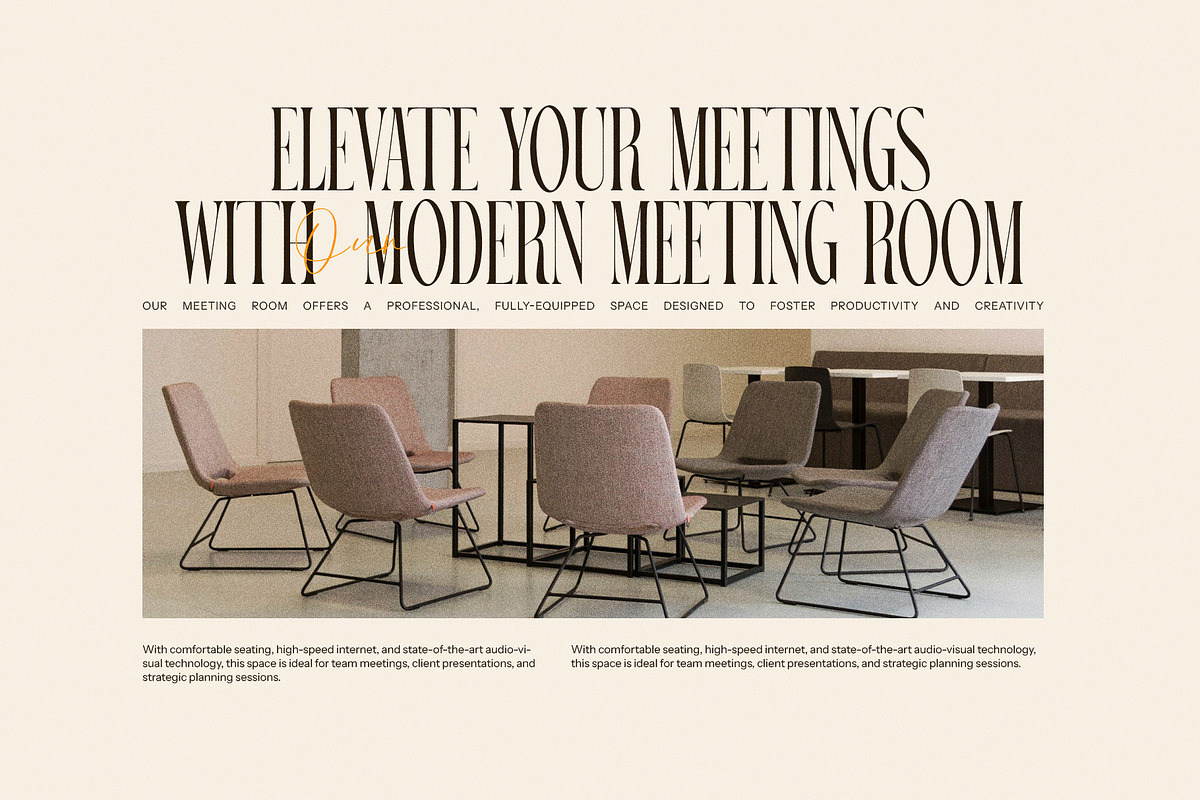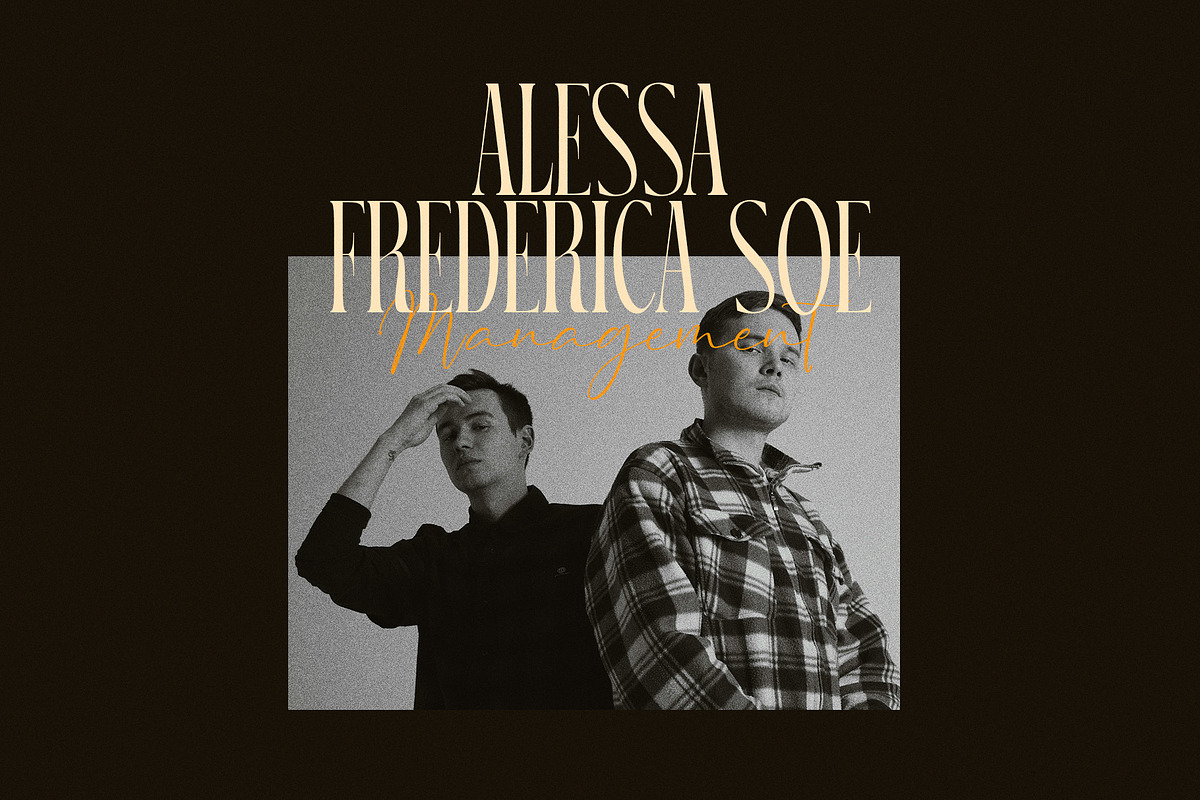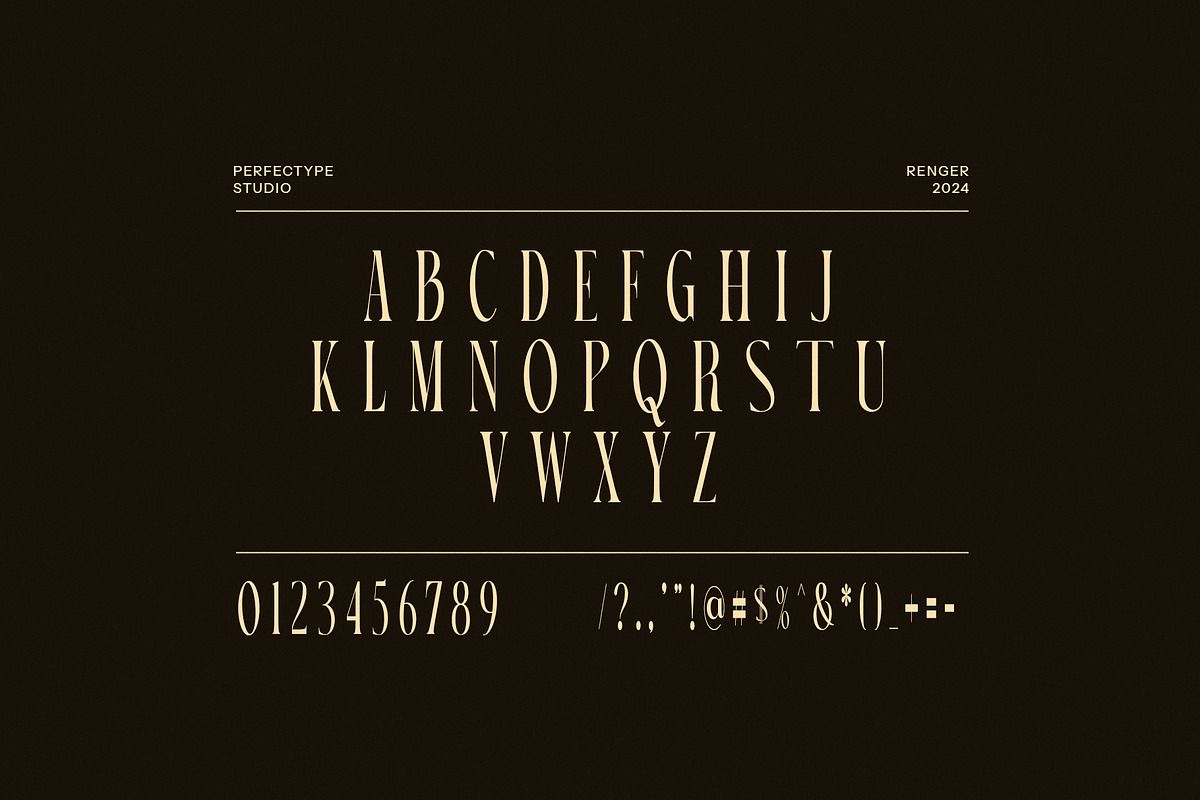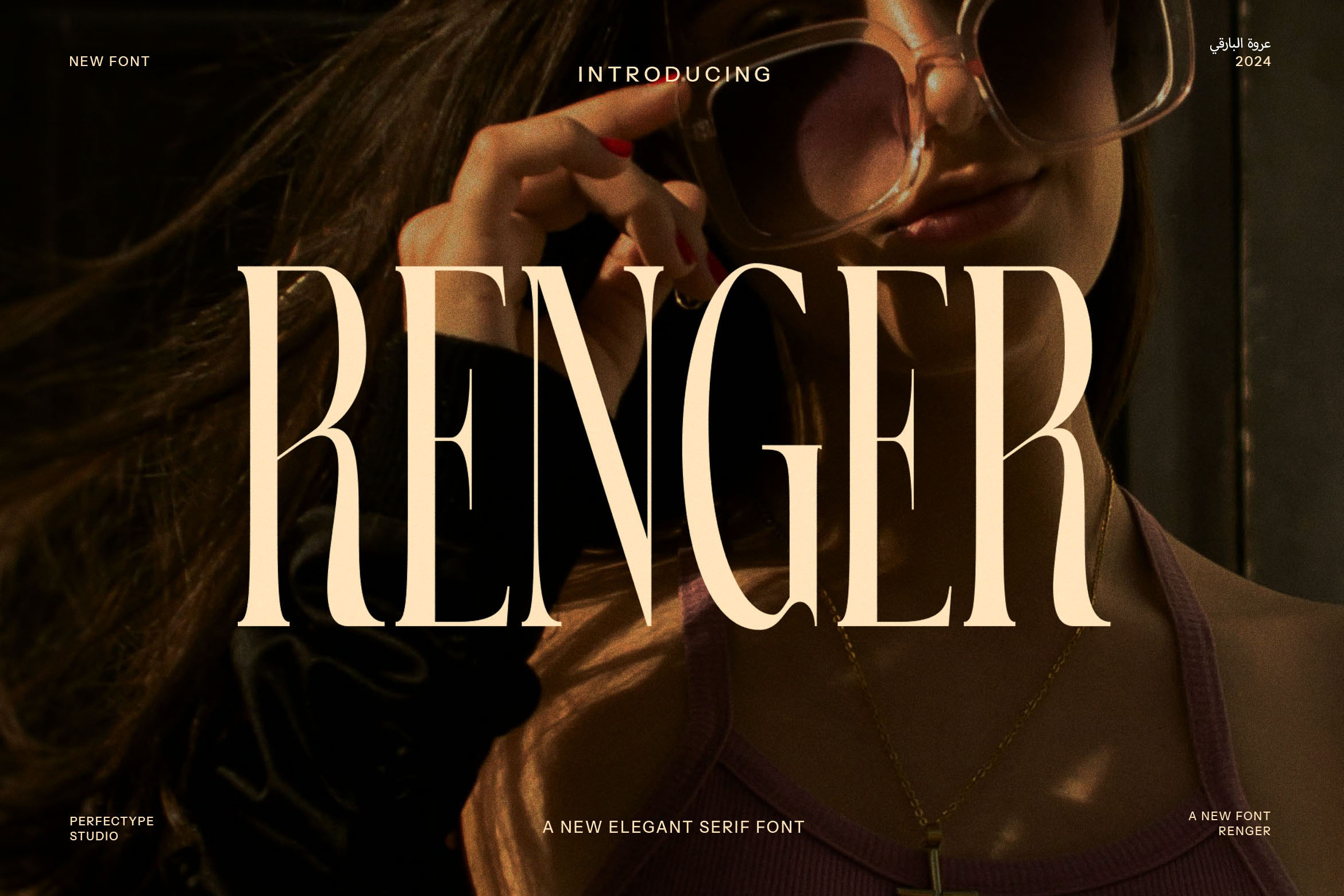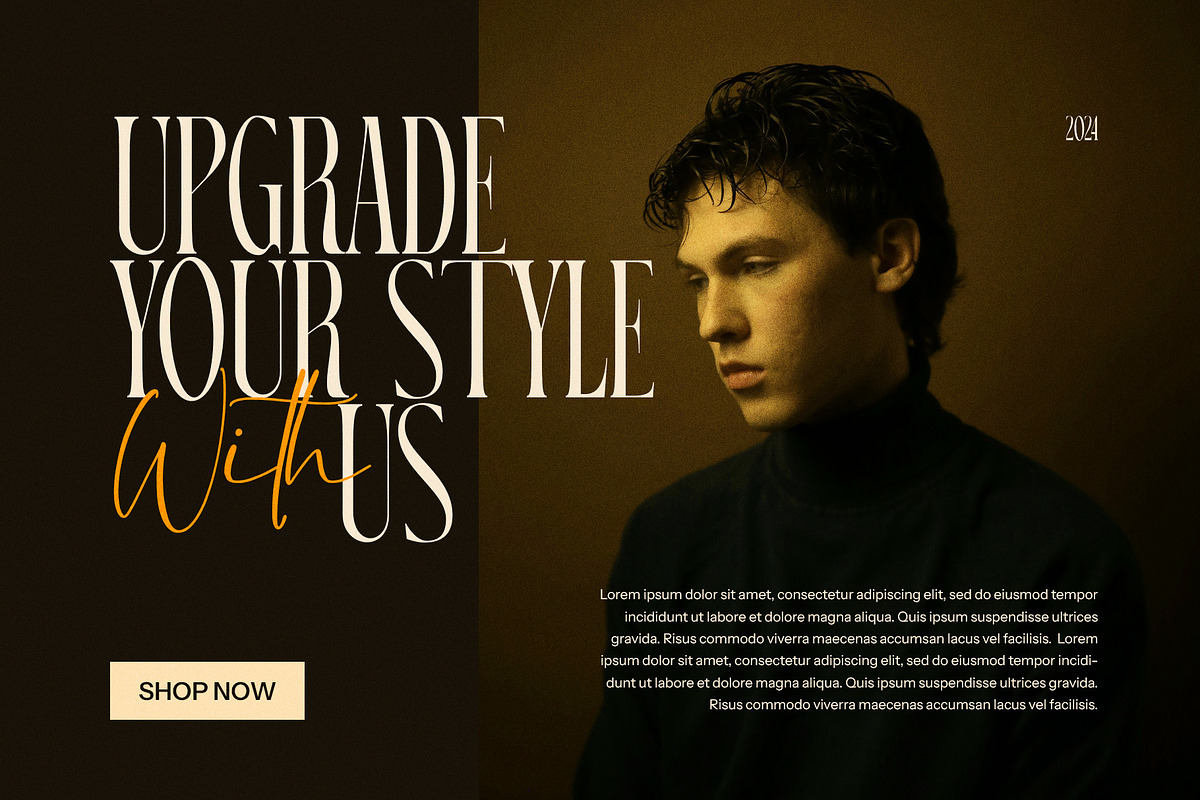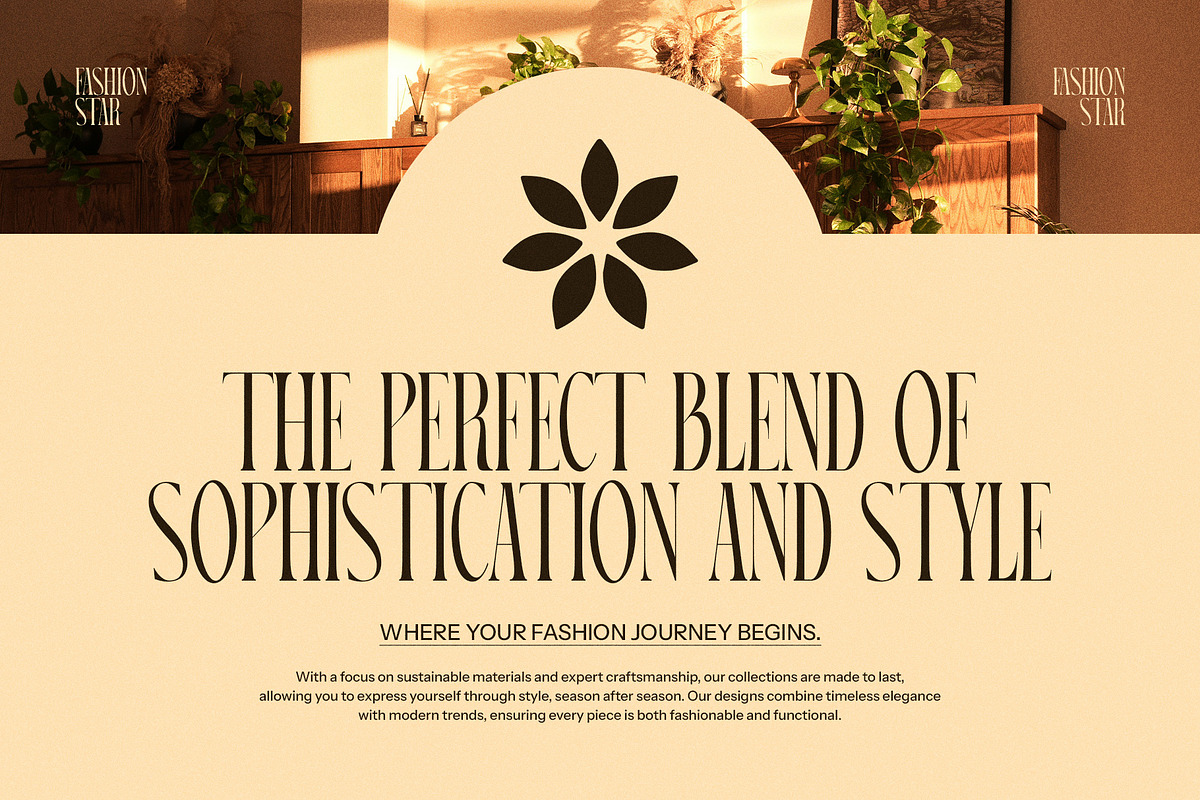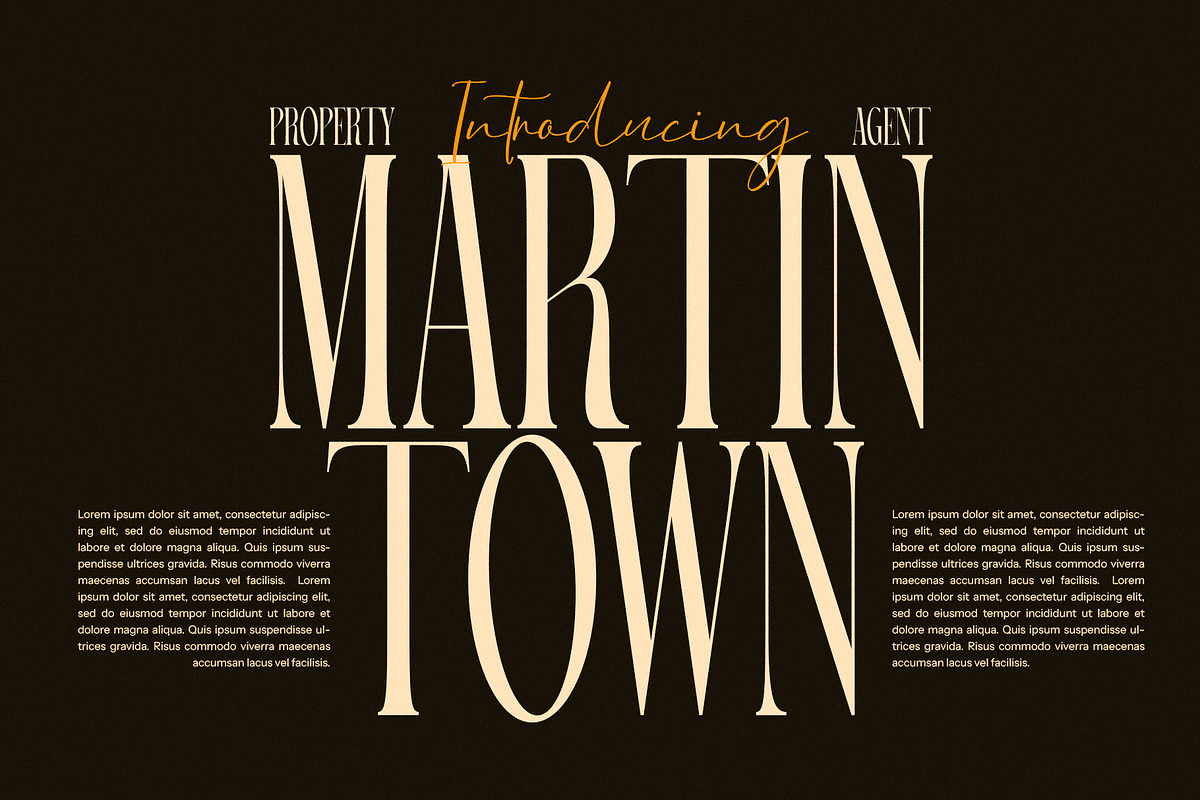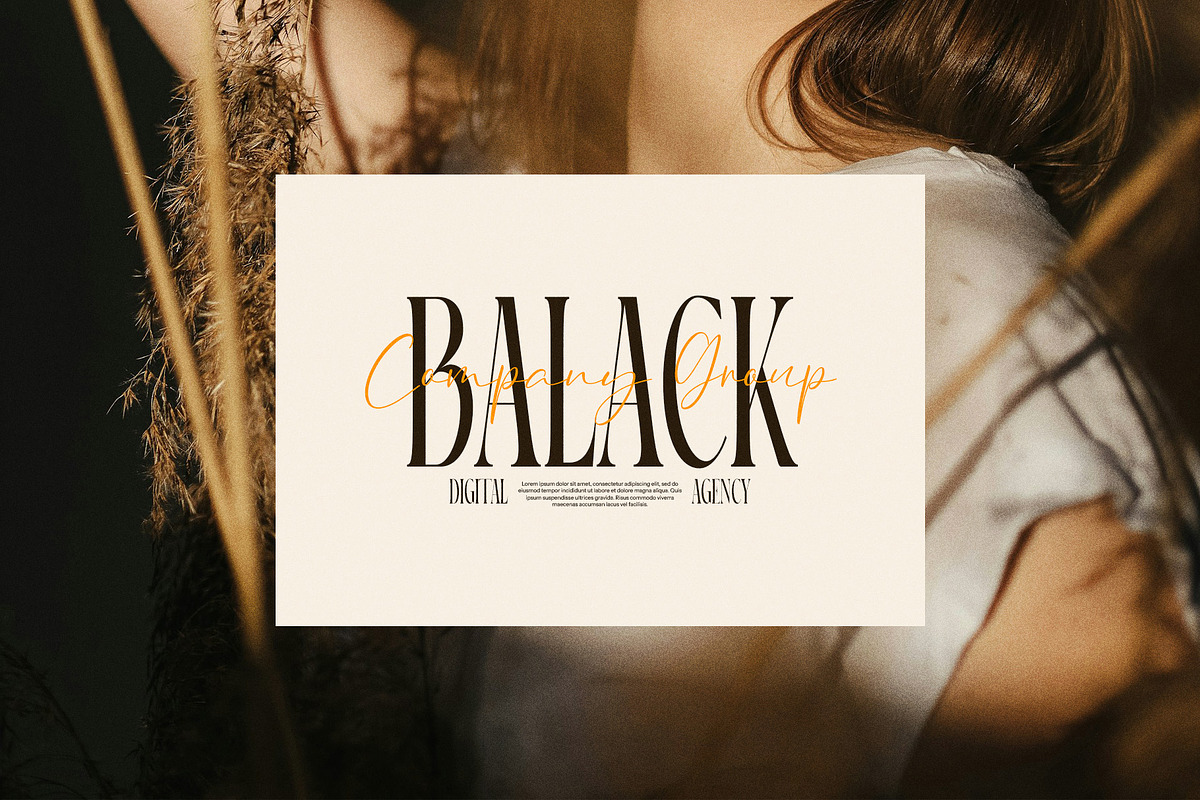
Renger Elegant Serif Font
Renger Modern Serif Font – Elegant, Timeless, and Versatile for All Your Creative Projects
Introducing Renger Modern Serif Font, a beautifully crafted typeface that blends modern elegance with vintage charm. This sophisticated serif font is designed to add a touch of class and refinement to any project, making it the perfect choice for a variety of design needs. Whether you’re working on branding, logo design, websites, magazines, or advertising, Renger Modern Serif provides a striking balance between contemporary style and timeless appeal.
With its unique letterforms and sharp serifs, this font works beautifully for both digital and print designs. Its versatile design makes it ideal for boutiques, food brands, fashion labels, and luxury products, helping you create a strong visual identity that resonates with your target audience. Renger Modern Serif excels in settings where elegance and professionalism are key, yet it still retains an approachable, humanistic feel.
Perfect for high-end editorial layouts or sophisticated product packaging, this font can be used across various platforms, from websites to social media posts. Its refined, high-contrast details and balanced proportions ensure legibility at any size, making it a versatile choice for both headlines and body text.
Whether you are designing for print or digital media, Renger Modern Serif delivers a polished and timeless aesthetic. Add a touch of vintage elegance to your creative projects with this stunning font today!